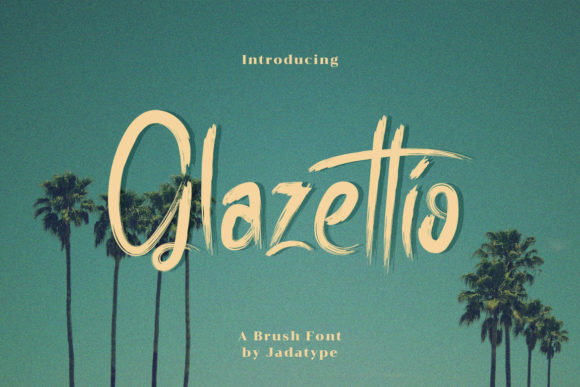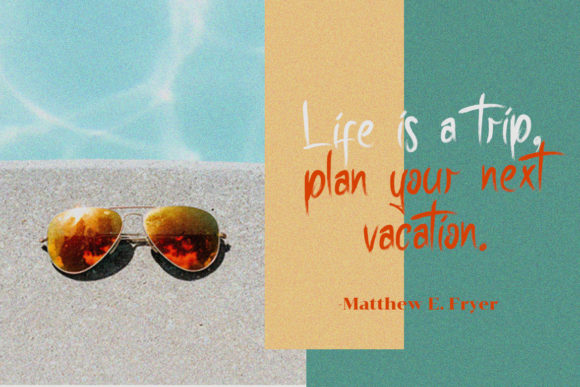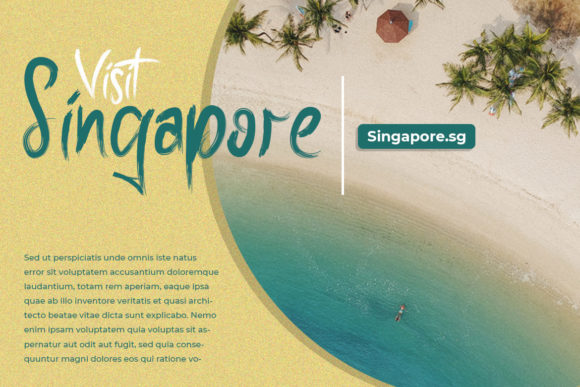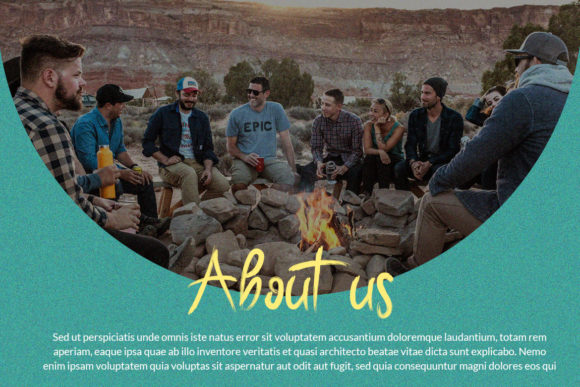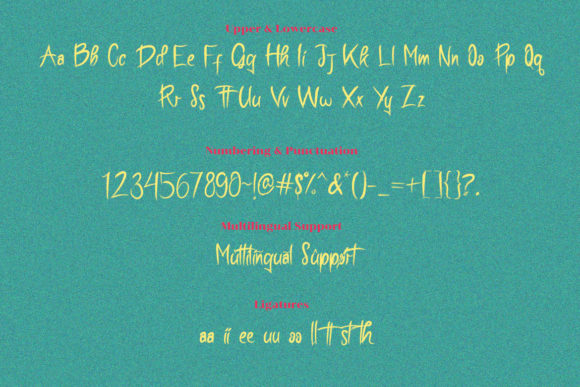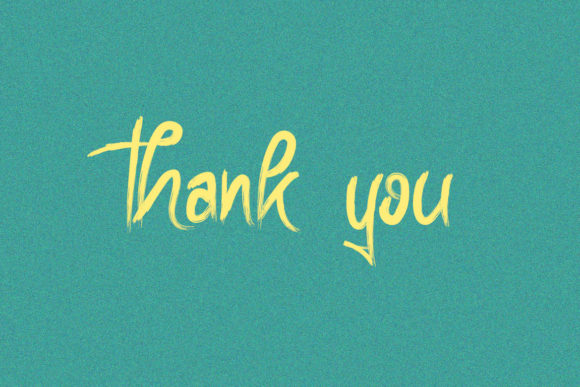
Glazettio Font
About Glazettio Font
Glazettio is a brush-styled handwritten font. Use this font with your designs and explore its endless possibilities.